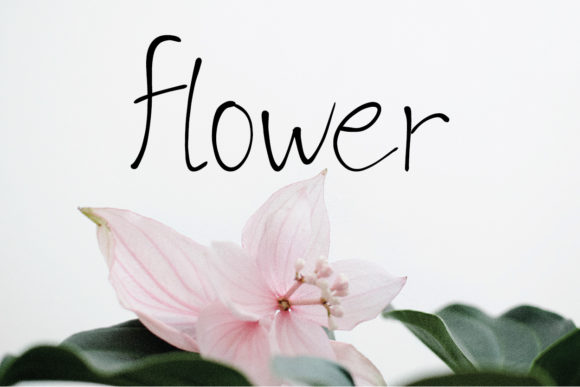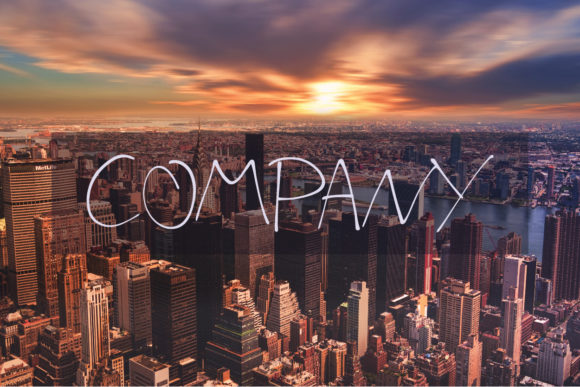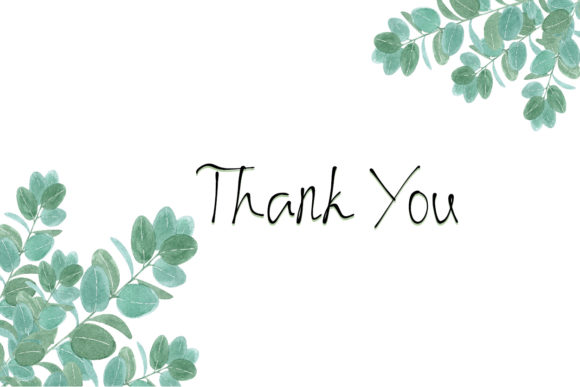
Sunset Font
About Sunset Font
Sunset is a simple and neat handwritten font. Dainty and joyful, this font will be ideal for writing wedding invitations, cards or any other design that may need a romantic, personalized touch!